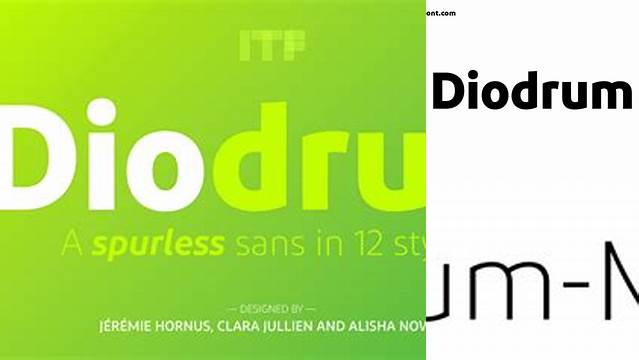
Hey everyone! If you're on the hunt for a cool and versatile font, look no further! This article dives deep into the world of the Diodrum font, offering you the chance to snag a Diodrum font free download. We'll explore its unique characteristics, discuss where to find it, and provide inspiration on how to use this awesome typeface in your creative projects. Get ready to elevate your designs with the sleek and modern appeal of Diodrum!
1. Unveiling the Elegance: What is the Diodrum Font?
So, what exactly makes the Diodrum font so special? Guys, it's a modern and geometric sans-serif font that exudes both sophistication and readability. Its clean lines, balanced proportions, and subtle curves make it a perfect choice for a wide range of design applications. Think of it as a chameleon in the font world – it seamlessly adapts to different styles and purposes. Whether you're working on a sleek website, a professional presentation, or a fun and playful poster, the Diodrum font has got you covered. The font family often comes with various weights and styles, allowing for diverse typographic expressions. You might find light, regular, bold, and even italic versions, providing designers with flexibility and control over the visual hierarchy of their projects. The versatility of Diodrum is one of its main selling points, making it a favorite among graphic designers, web designers, and anyone looking to add a touch of contemporary flair to their creations. Its simplicity allows the message to take center stage, while its inherent style provides a visual hook that grabs the audience's attention. Diodrum isn't just a font; it's a design tool that empowers you to communicate your ideas effectively and with a touch of modern elegance. The design also makes this font easy to read at all sizes, and you can be sure that your message will be received easily, whether it is for small text for websites, or large headlines for posters and banners.
2. Why Choose Diodrum for Your Projects?
Diodrum font has quickly become a favorite among designers, so why should you consider using it? First off, its clean and modern aesthetic is timeless, making it suitable for projects that require a contemporary look. It's a great choice if you want to avoid the overly ornate or overly casual look, something that is suited for all types of projects. This is why many designers choose to get a Diodrum font free download. Secondly, its excellent readability makes it ideal for both headlines and body text, ensuring your message is clear and easy to understand. Whether you're designing a website, a brochure, or a social media graphic, this font ensures the audience can quickly grasp the information. Then the versatility of the Diodrum font is another huge advantage. It works well across various mediums – from print to digital – and in various design styles, from minimalist to more elaborate designs. You can use this font for branding, editorial design, web design, and more. Furthermore, it has a professional look and feel. It brings a sense of sophistication to your work, helping you to create a polished and impactful design. Using this font means your work will be taken more seriously, which is a great benefit. Choosing the right font can significantly impact the overall effectiveness of your design. The correct font will not only deliver your message but also reflect your brand's personality. By downloading and using the Diodrum font, you're opting for a font that aligns with modern design principles, making your work relevant and appealing to a wider audience.